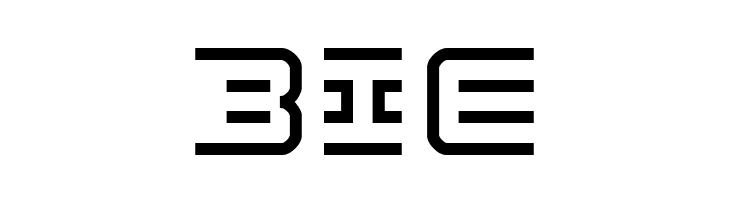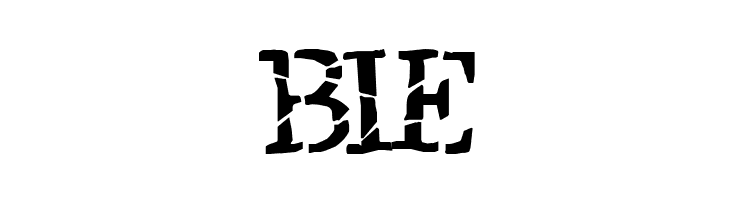
A dot matrix style font with a modern, tech-inspired aesthetic.
A geometric, futuristic font with a stencil-like design and bold, angular lines.
A bold, stencil-like font with a rugged, industrial design.
A modern, geometric font with rounded edges and a clean, minimalistic design.
A bold, geometric font with a futuristic and tribal aesthetic.
A bold, rounded font with playful, heart-shaped details.
A playful, bold font with a bubbly, hand-drawn style.
A playful font with characters made of small, evenly spaced circles, creating a bubbly appearance.